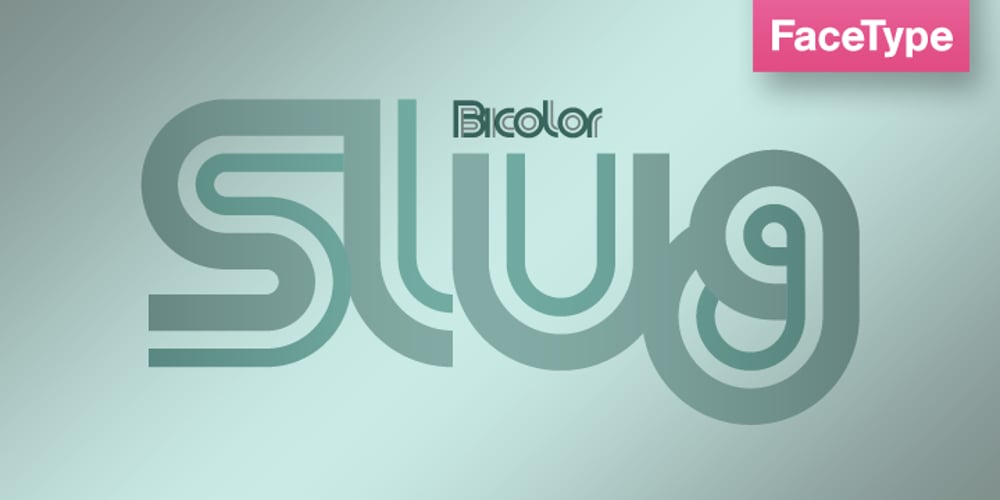
Slug Font Family was designed by Marcus Sterz and published by FaceType. Slug contains 5 styles and family package options. Slug is a clean, geometric font, like those that were widely used in the 1970s. To give the user a wide range of possibilities, we made not only a half, a single and a double version, but also provided a bicolor solution: by combining Bicolor A and B you will create astounding multicolored pieces of typography.